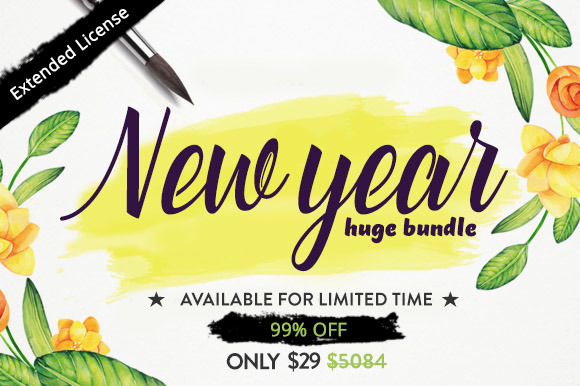
Dash of Inspiration: Font Deals
FREE Fonts …
Riffic – fun alternative to the ugly and over-used Comic-Sans. Great for humor related cards and those for children. FREE for CU!
Sunday – A Vintage hand drawn typeface by Anastasia Dimitriadi
SudegnakNo2 Font by gluk – This is a fun choice for those chalkboard style and for comic designs.
New Year Bundle of 56 Fonts from Creative Market – Until January 30